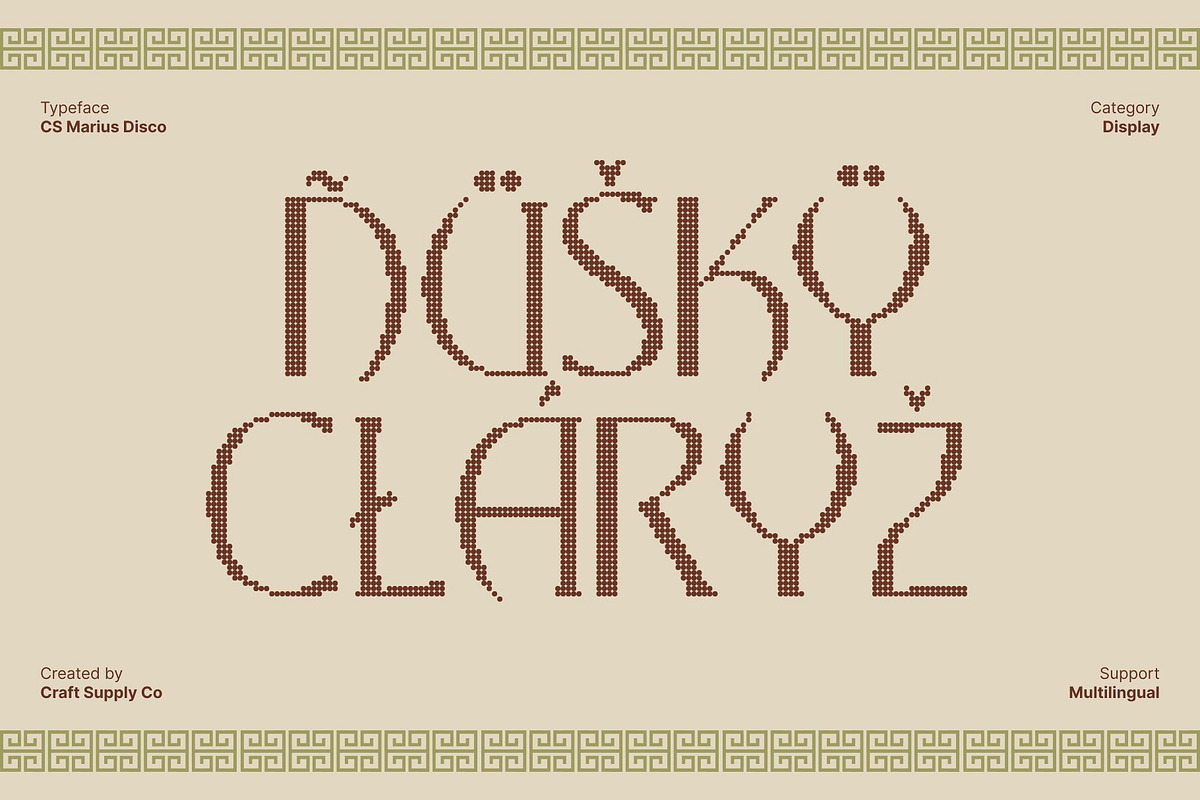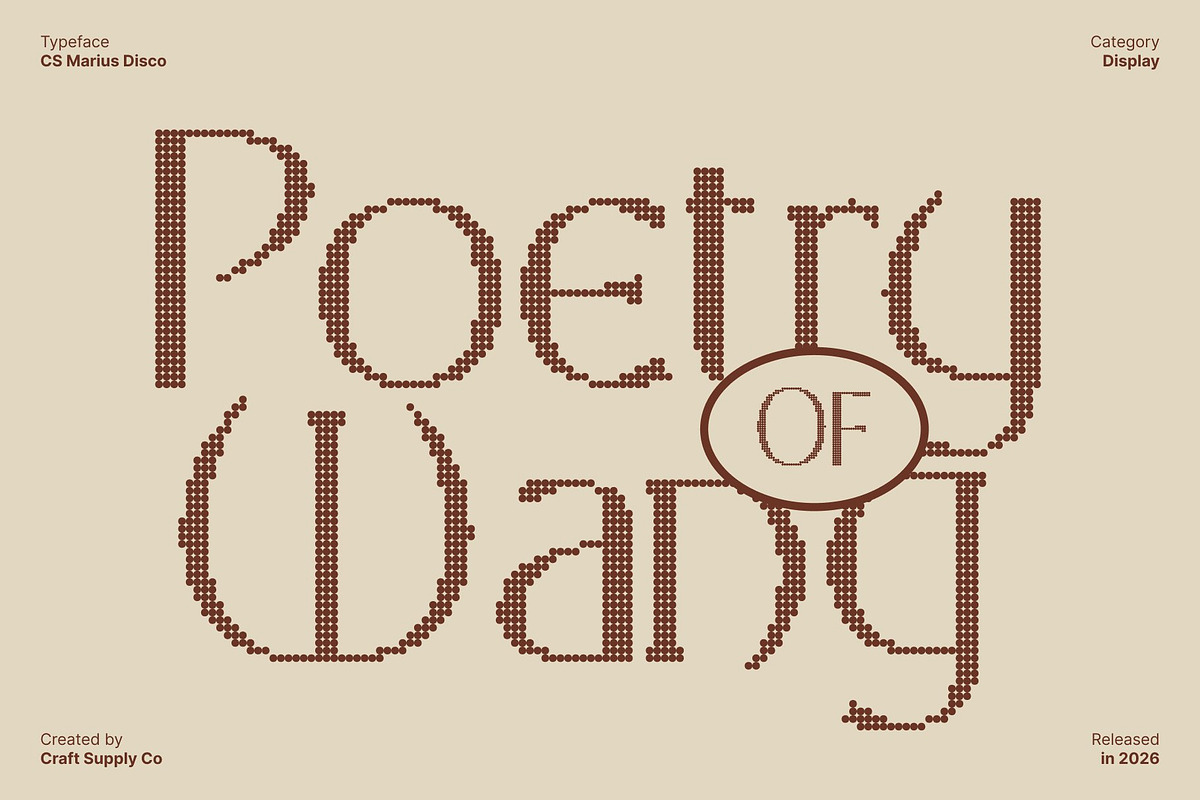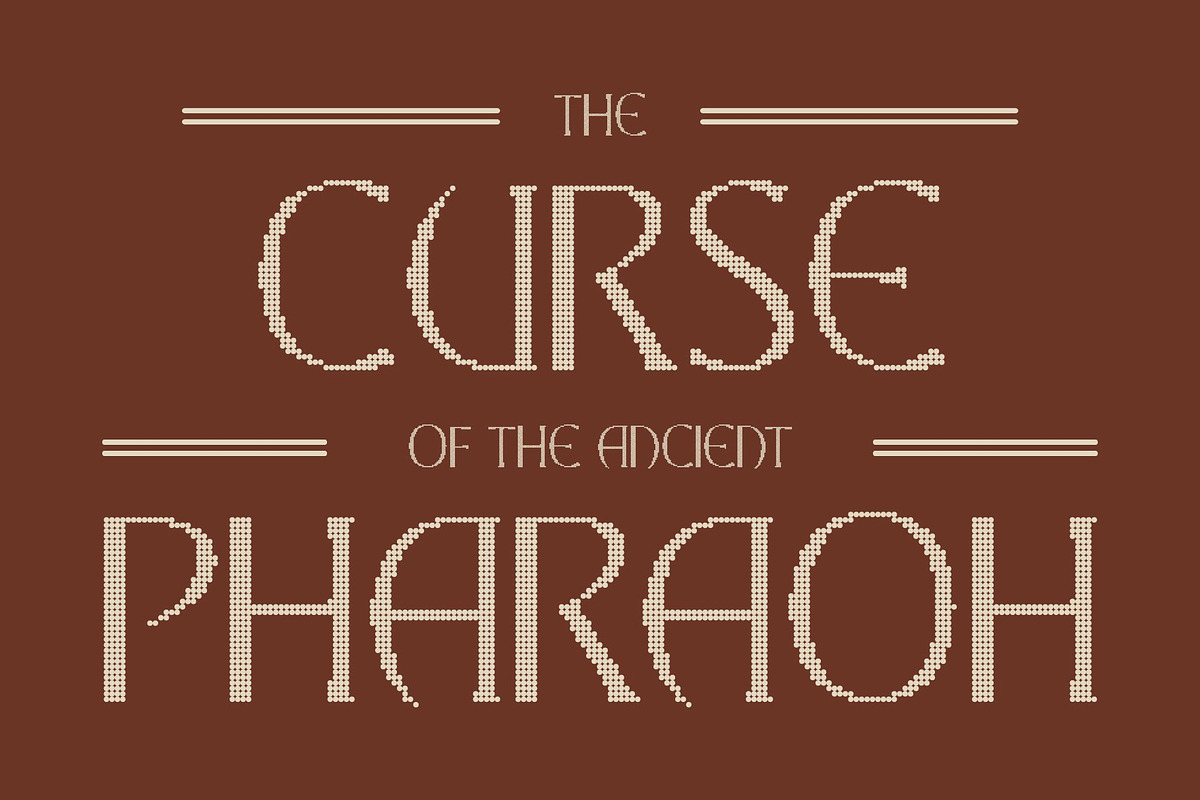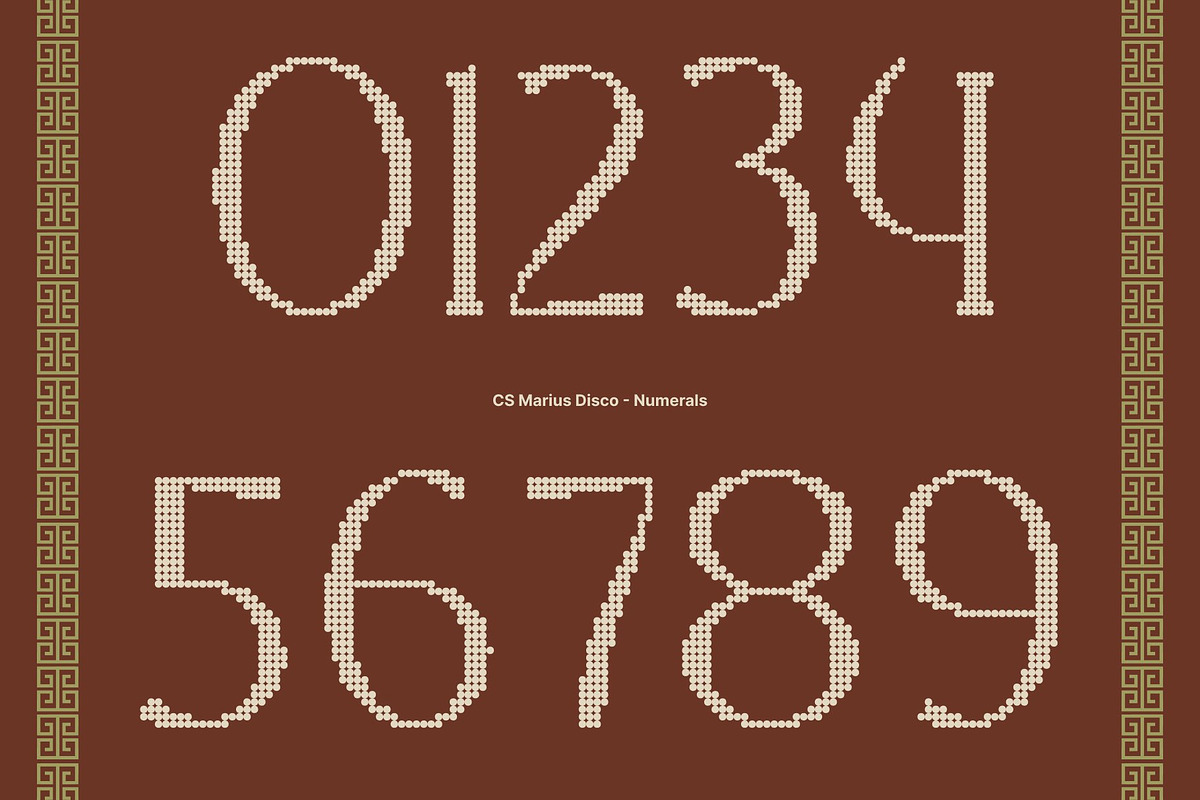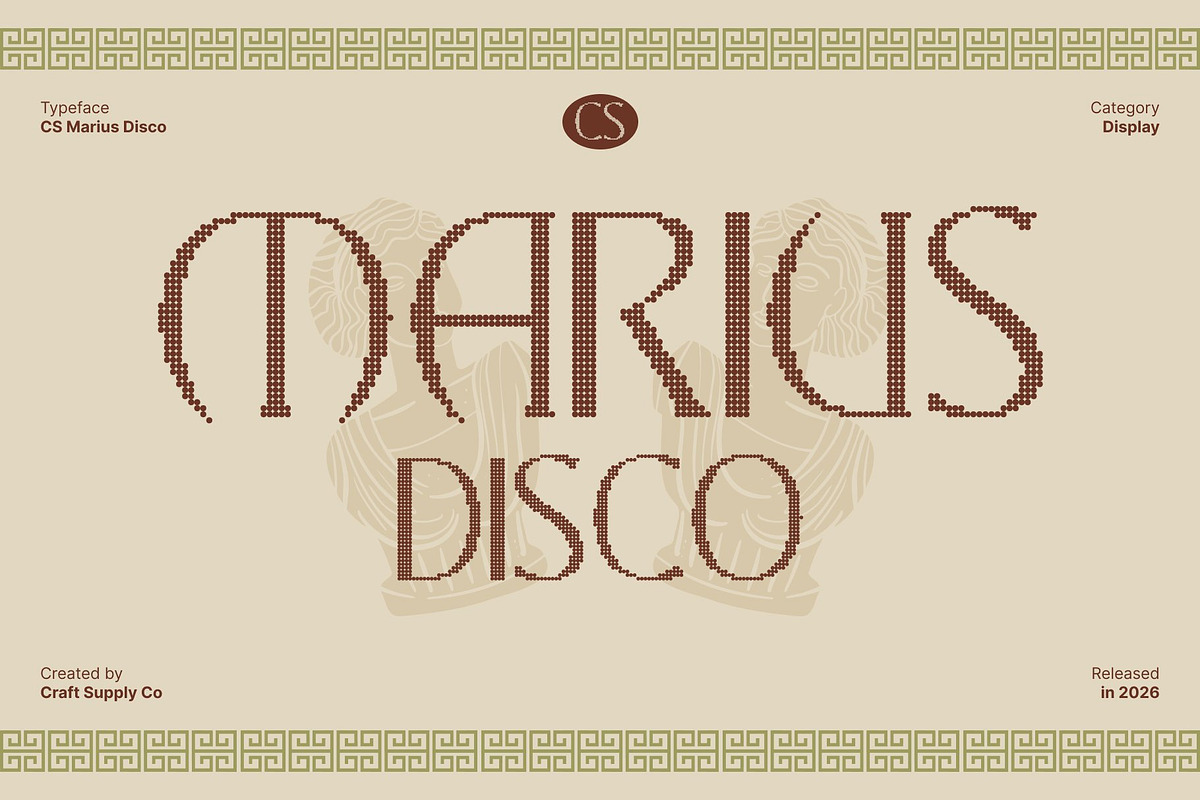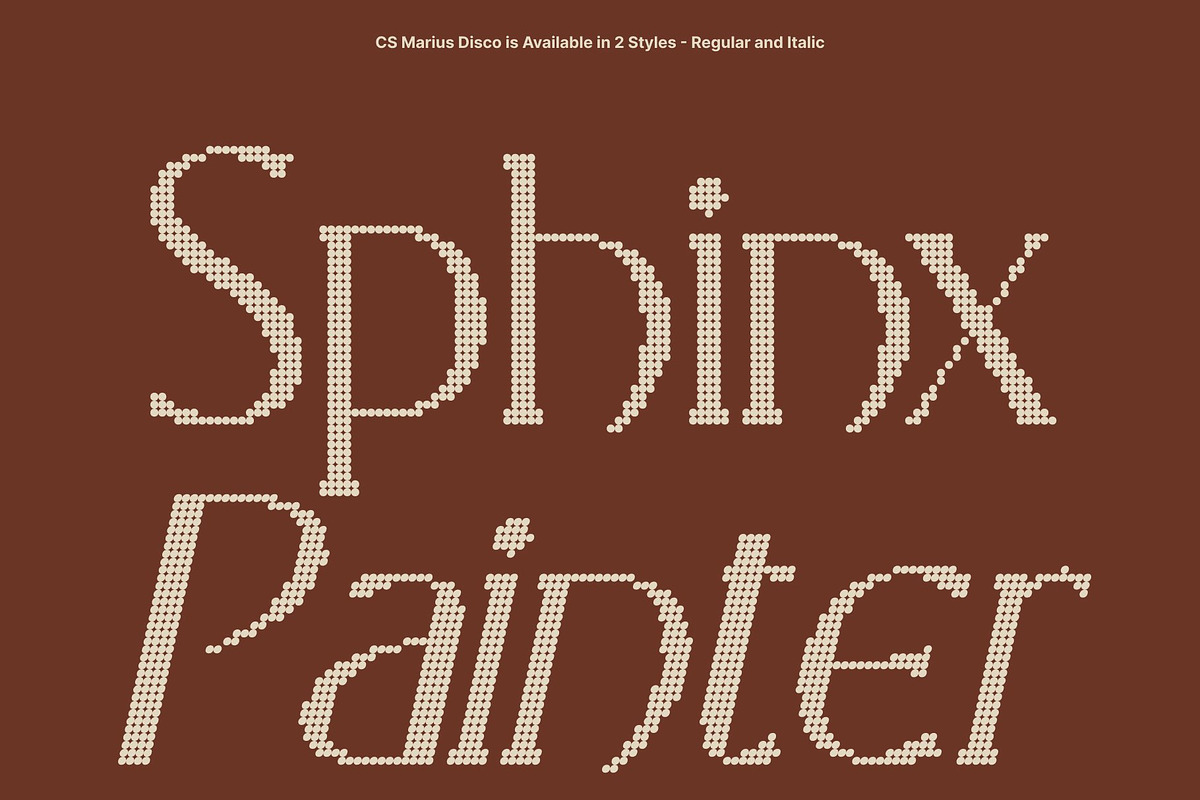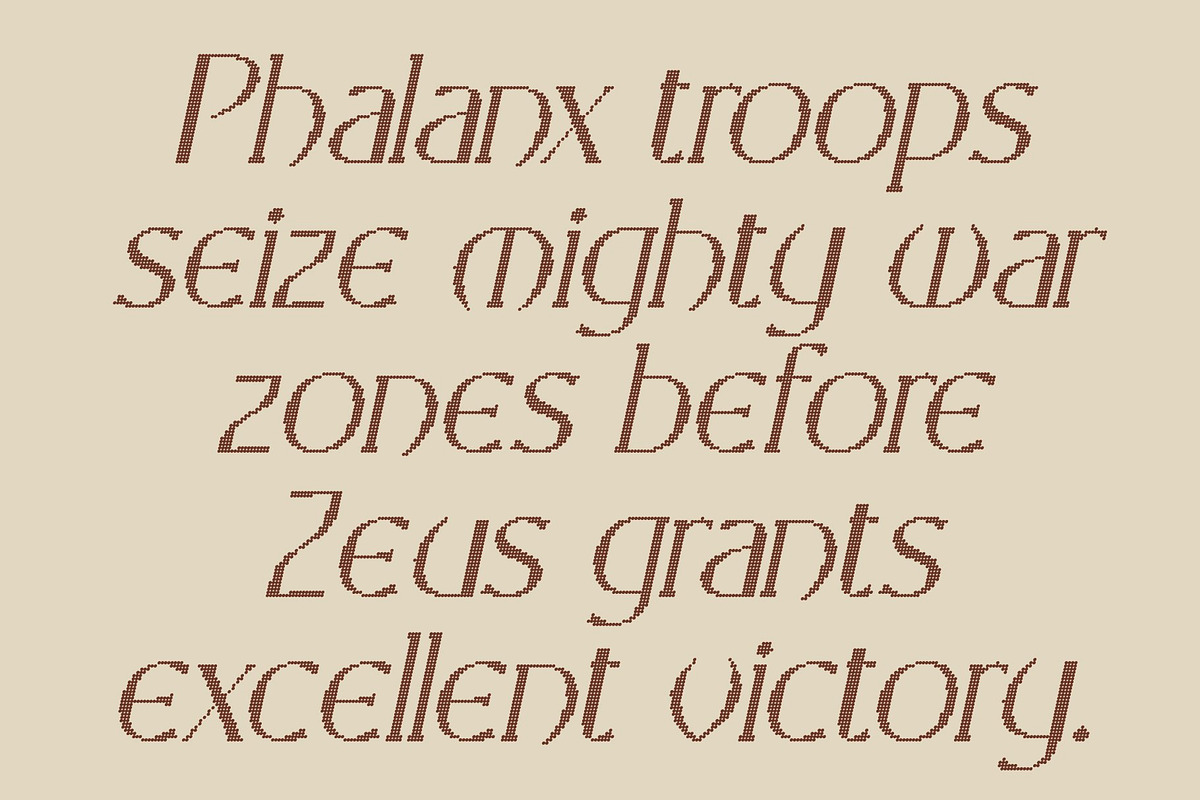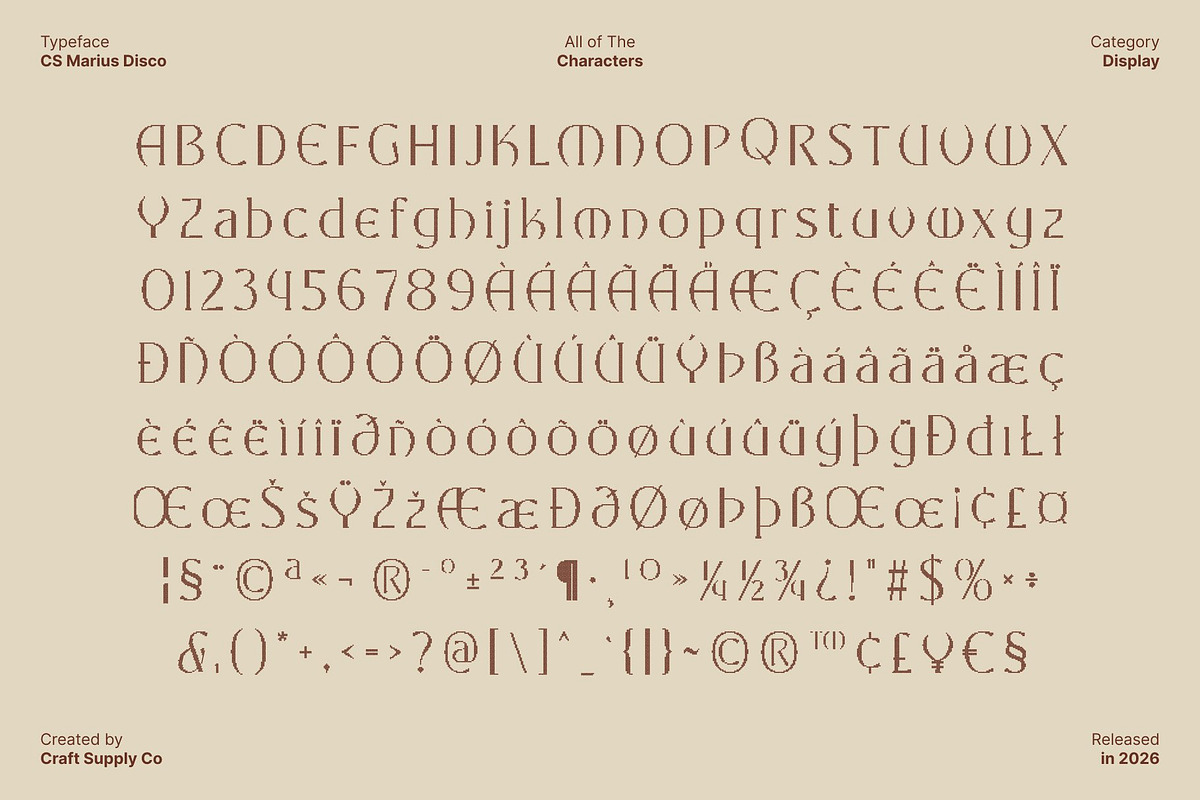
CS Marius Disco
CS Marius Disco – Timeless Greek Elegance with Glamorous Energy
Majestic Classical Design with a Disco-Era Spark This is a modern display serif font inspired by the grandeur of Greek-style lettering, reimagined with a vibrant disco attitude. Its bold, commanding forms echo classical architecture, while a polished, contemporary execution brings a sense of glamour and rhythm like ancient elegance stepping onto a modern dance floor.
Architectural Serifs with Rhythmic Power The strong, proportional serifs of this font reflect the solidity of classical columns, enhanced with a dynamic visual flow that feels lively and expressive. Each letter carries weight and authority, yet moves with confident energy, creating a striking balance between stately structure and festive motion.
Classic Luxury with Party-Ready Glamour Designed to feel regal yet exciting, this font transforms traditional luxury into something bold and celebratory. Its Greek-inspired foundation delivers prestige and sophistication, while the disco influence adds shine, confidence, and a sense of spectacle. The result is a typeface that feels powerful, stylish, and ready to steal the spotlight.
Perfect for Luxury Branding, Editorials, and Statement Visuals This font excels in high-impact applications such as luxury branding, fashion campaigns, editorial headlines, event posters, and premium packaging. Its commanding presence and glamorous energy make it ideal for designs that want to feel timeless yet vibrant where classical beauty meets the pulse of modern nightlife.
- CS Marius Disco Regular
- CS Marius Disco Italic